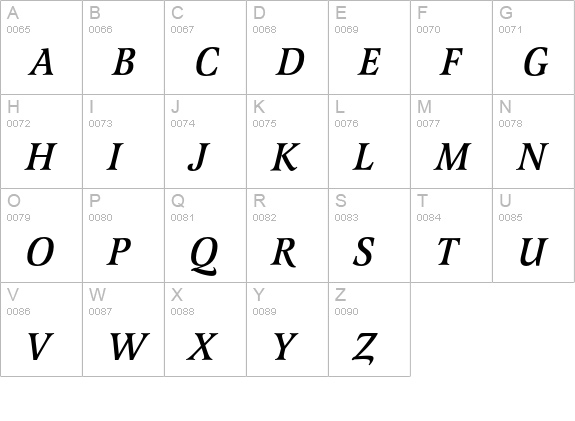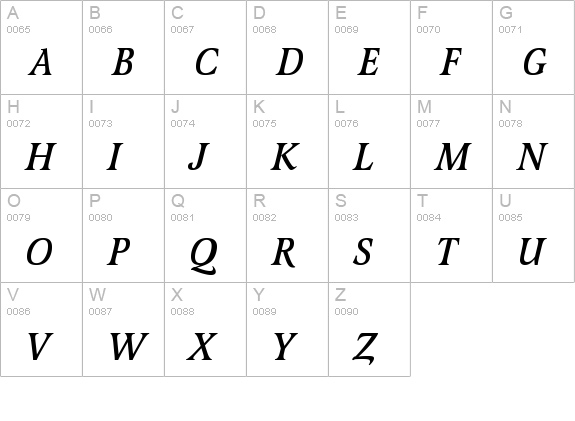
LatienneEF-MediumItalic Font Details
LatienneEF-MediumItalic is a stunning font that effortlessly blends elegance and sophistication. Its delicate curves and slanted, italic design imbue any text with a touch of grace and refinement. Ideal for projects that require a touch of luxury, such as invitations, wedding announcements, or high-end branding, this font exudes a sense of exclusivity. With its medium weight, LatienneEF-MediumItalic strikes the perfect balance between legibility and style. Each letter is meticulously crafted, ensuring that every stroke is flawlessly executed. This attention to detail makes it not only visually pleasing but also easy to read, even at smaller sizes. One of the most remarkable aspects of LatienneEF-MediumItalic is that it is available for free. Yes, you read that right – this incredible font can be downloaded at no cost from FontsMarket.com. This means that designers, businesses, and individuals alike can access and utilize this beautiful font without breaking the bank. Whether you are a professional graphic designer looking for a font that will elevate your creations or an individual in need of a font for a personal project, LatienneEF-MediumItalic is the perfect choice. Its versatility, charm, and accessibility make it an excellent addition to any font library. So why wait? Head over to FontsMarket.com today and download LatienneEF-MediumItalic for free. Unleash your creativity and let this font transform your designs into works of art.